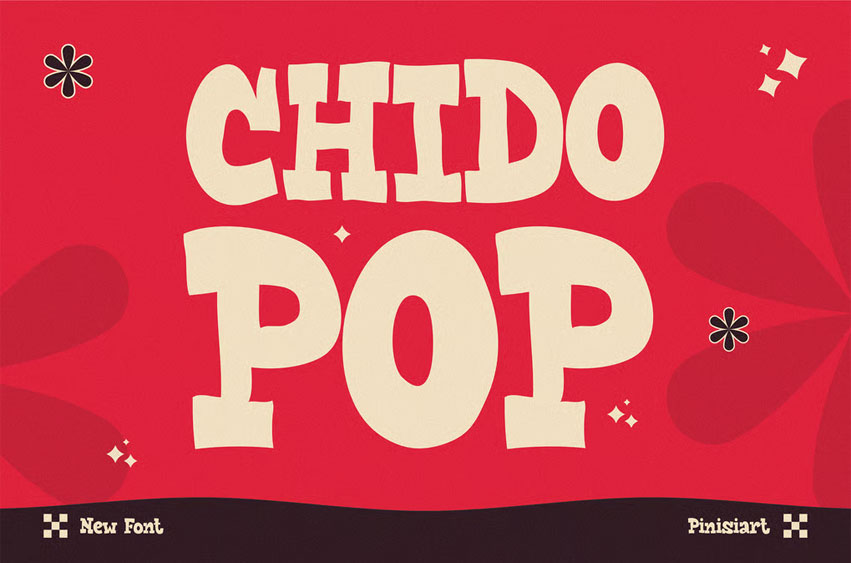
Chido Pop Font
Chido Pop Font brings a cheerful retro energy to your designs with chunky letterforms, rounded edges, and a bouncy rhythm that feels both nostalgic and modern. Its expressive curves and bold proportions make every word stand out—perfect for brands that want to communicate joy, creativity, and confidence. Inspired by mid-century pop culture and playful typography, this font blends vintage soul with a friendly, handcrafted touch that feels fun and approachable.
Whether used in kids’ branding, event posters, or lifestyle packaging, Chido Pop adds an instant spark of personality. The bold weight and high readability make it ideal for eye-catching headlines and expressive logotypes that stay memorable.
Bring your designs to life with a font that plays loud, feels bold, and connects emotionally. Chido Pop fits perfectly into creative markets like children’s products, toys, comics, retro branding, or cafe identities. Designers love its mix of nostalgic charm and playful confidence—it instantly makes your message feel fun, youthful, and full of heart. Use it in social media graphics, posters, packaging, or editorial titles, and watch your visuals pop off the page with infectious personality.
• Playful Retro Feel: Evokes vintage energy with a fun, modern twist.
• Rounded & Chunky Letterforms: Soft edges and smooth proportions enhance legibility.
• Expressive Energy: Ideal for attention-grabbing headlines or playful slogans.
• Versatile Design: Works across kids’ products, brand logos, and retro campaigns.
• High Impact: Perfect balance of bold style and friendly character.
• Kids branding & toy packaging
• Retro poster designs
• Event promotions & editorial titles
• Café logos, bakery signs, and creative startups